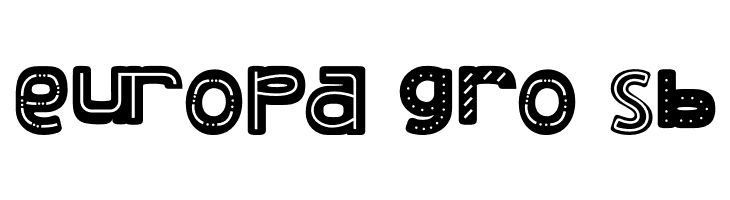
( Fonts by Kereatype Studio )
A bold, comic-inspired font with a shadow effect for a dynamic, playful look.
( Fonts by Lettersiro Studio )
A bold, playful font with cartoon-like characters and a dynamic, energetic style.
( Fonts by Press Gang Studios - Andeh Pinkard - www.pressgang-studios.com )
A bold, hand-drawn font with a playful, comic-like style.
( Fonts by Press Gang Studios - Andeh Pinkard - www.pressgang-studios.com )
A bold, italicized handwritten font with a playful and dynamic style.
( Fonts by Press Gang Studios - Andeh Pinkard - www.pressgang-studios.com )
A bold, italicized, and playful handwritten font.
( Fonts by Blankids )
Playful and bold cartoon-style font.
( Fonts by Blankids )
Bold, playful font with 3D extruded effect.
( Fonts by Gie Studio )
A bold, playful font with a comic-style, hand-drawn appearance.
( Fonts by Bangkit Tri Setiadi )
A bold, playful outline font with a comic, stone-like appearance.
( Atjcloth Studio - Hanif Syahputra - creativemarket.com/Atjcloth?u=Atjcloth )
A bold, playful font with a comic book style and hand-drawn feel.
( www.studiotypo.com )
A playful, bold font with rounded characters and a cartoonish style.
( Fonts by Letteralle Studios - Annas Yahya - Personal-use only. For commercial use please contact owner. )
A bold, hand-drawn style font with a comic book flair.
( Fonts by bijeh.studio )
A bold, 3D extruded font with a playful, cartoonish style.
( Fonts by bijeh.studio )
A playful, bold font with cartoonish, exaggerated letterforms.